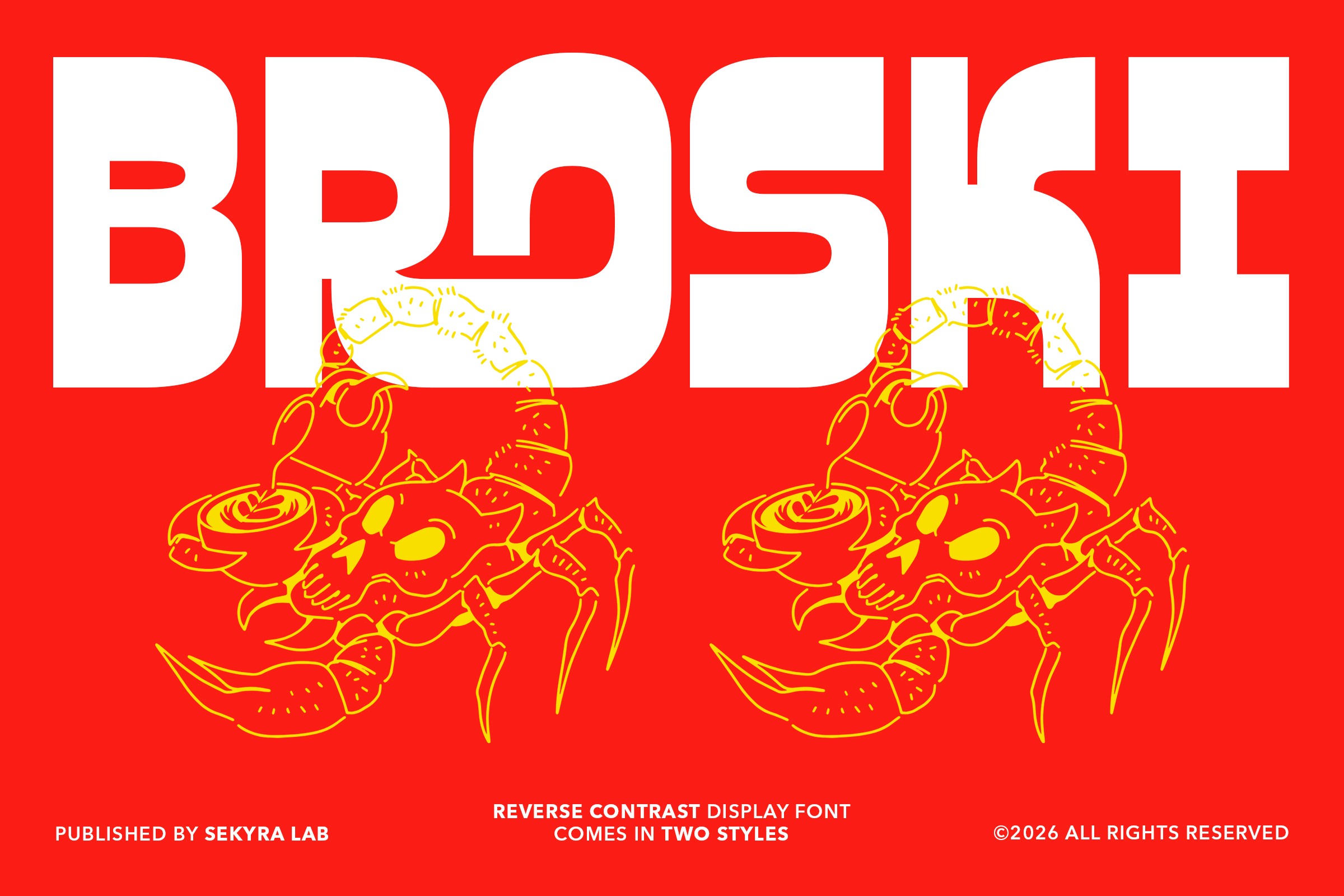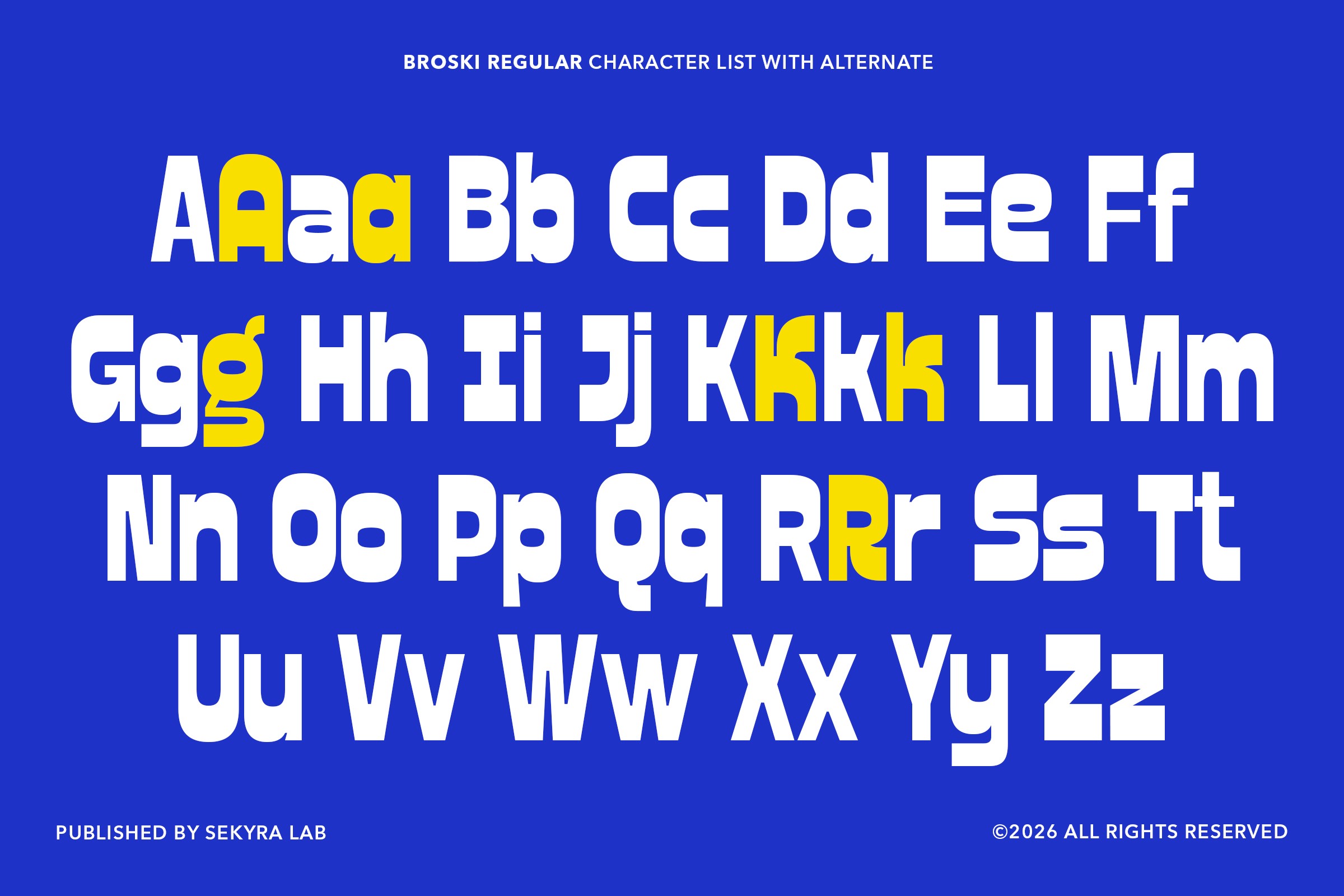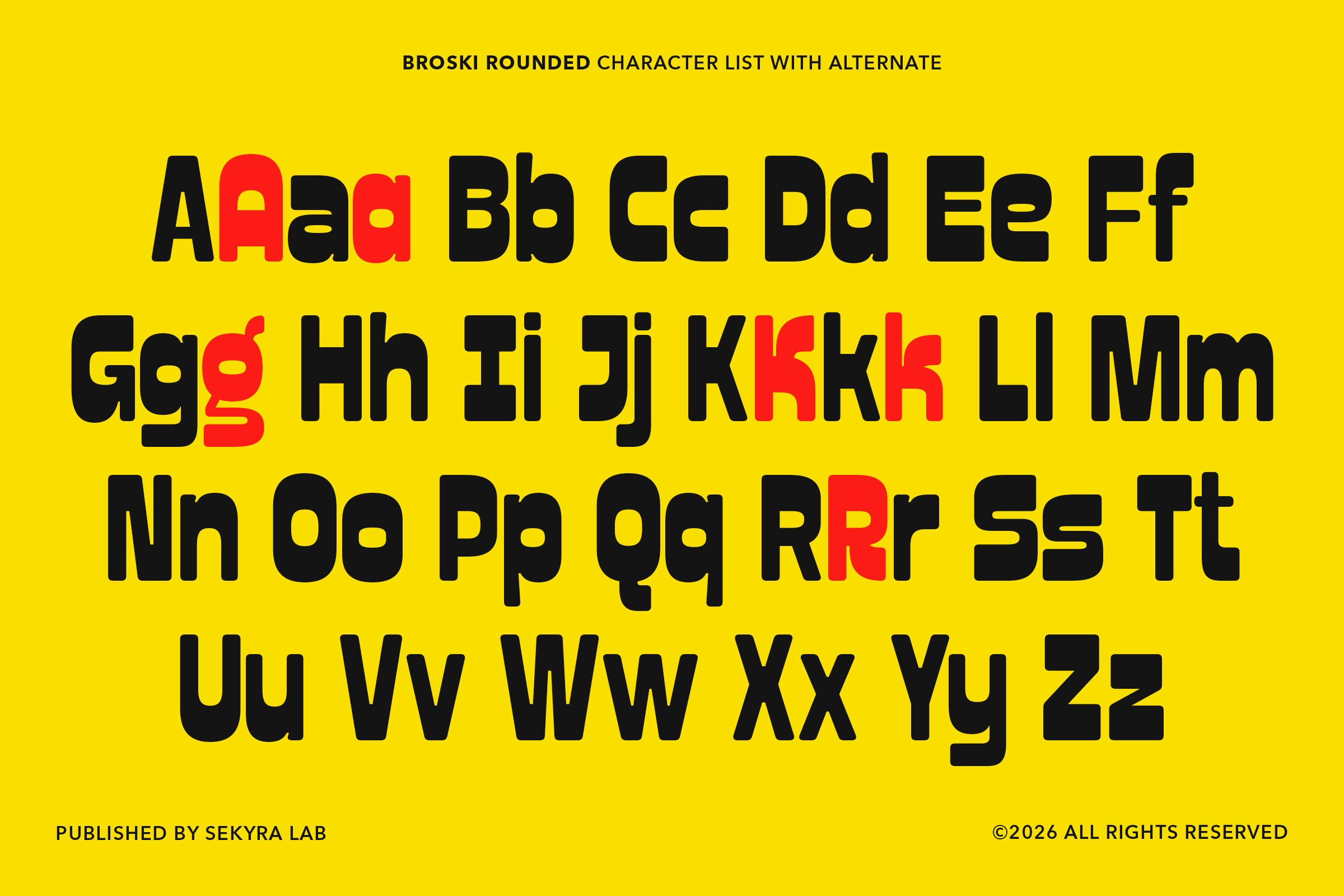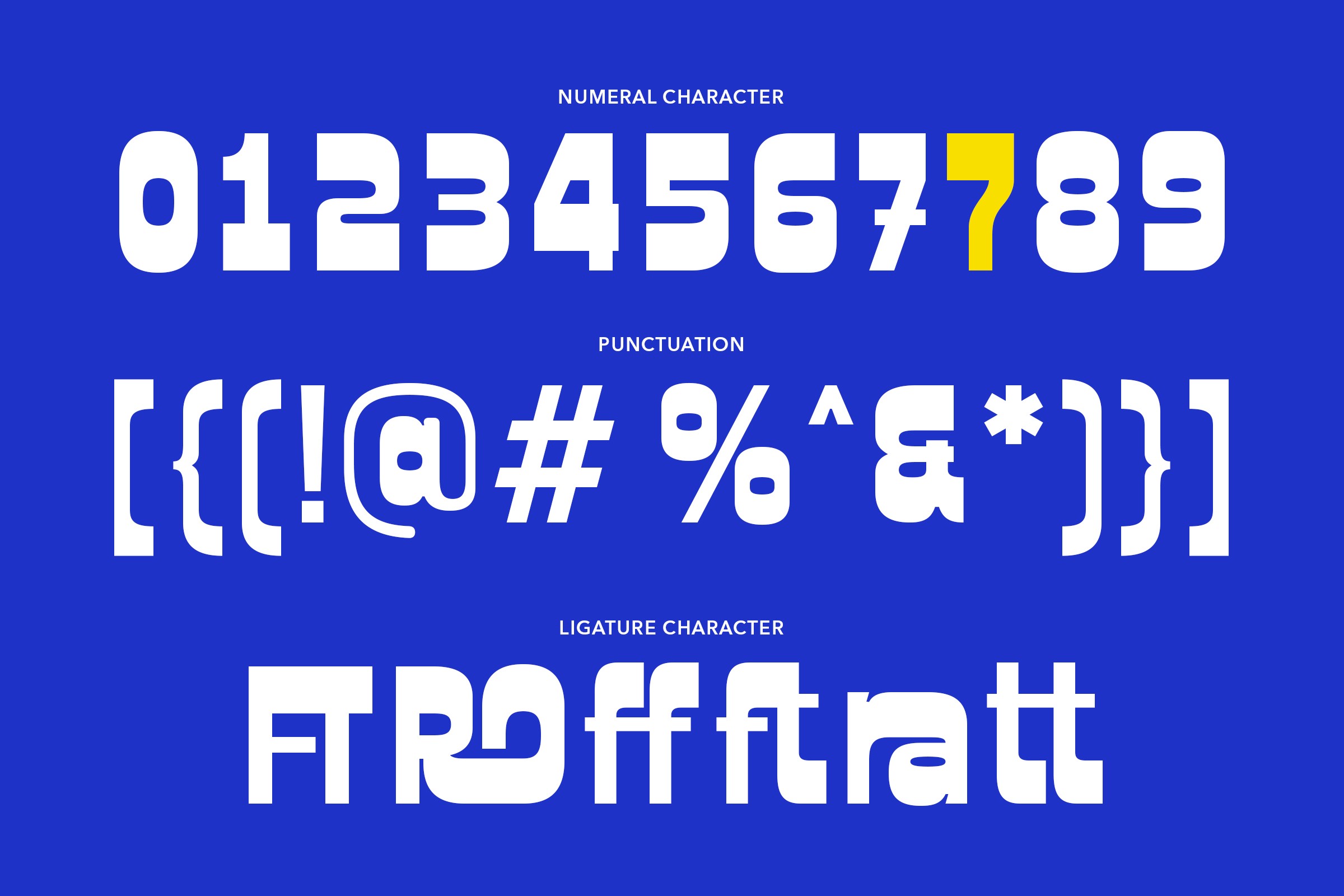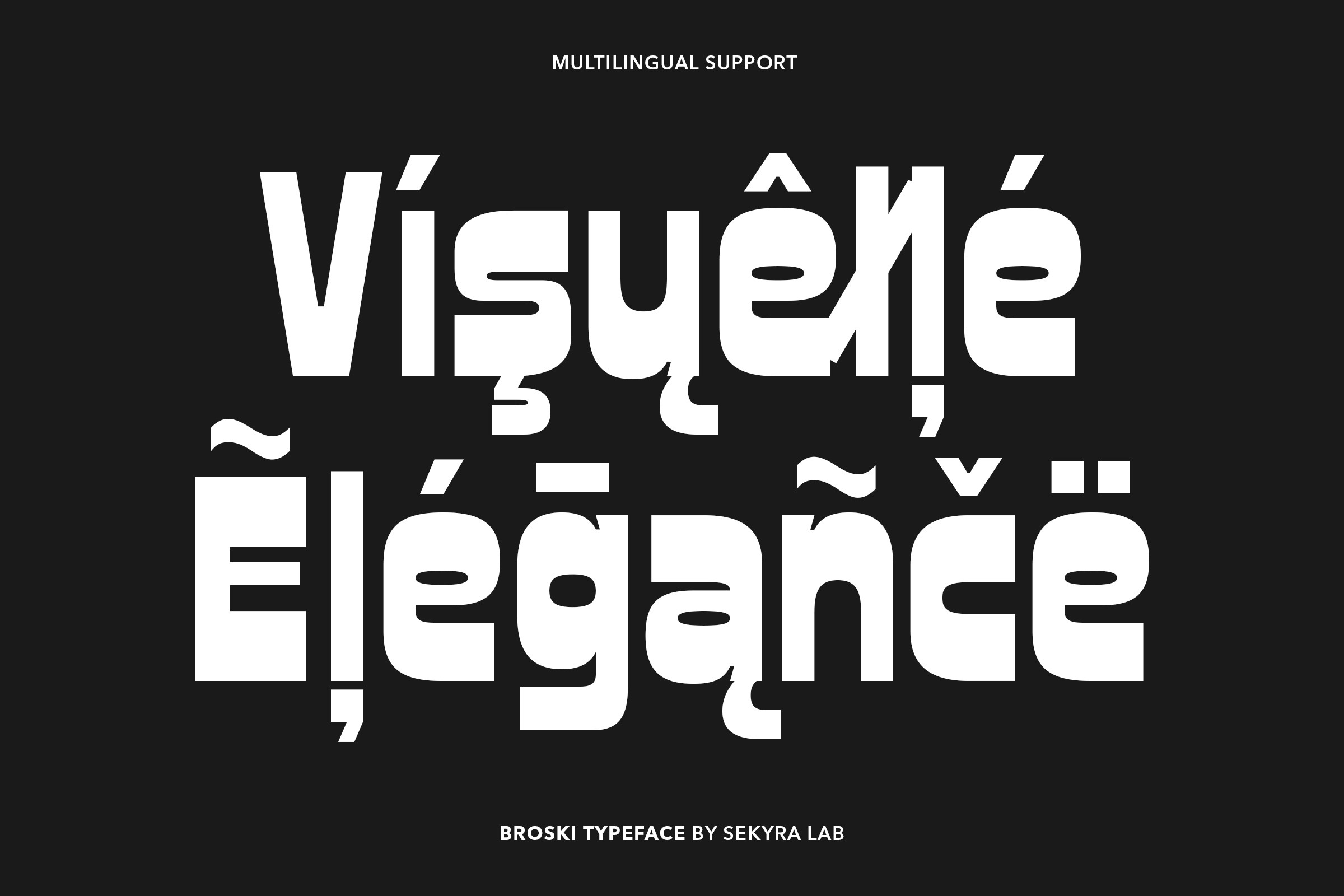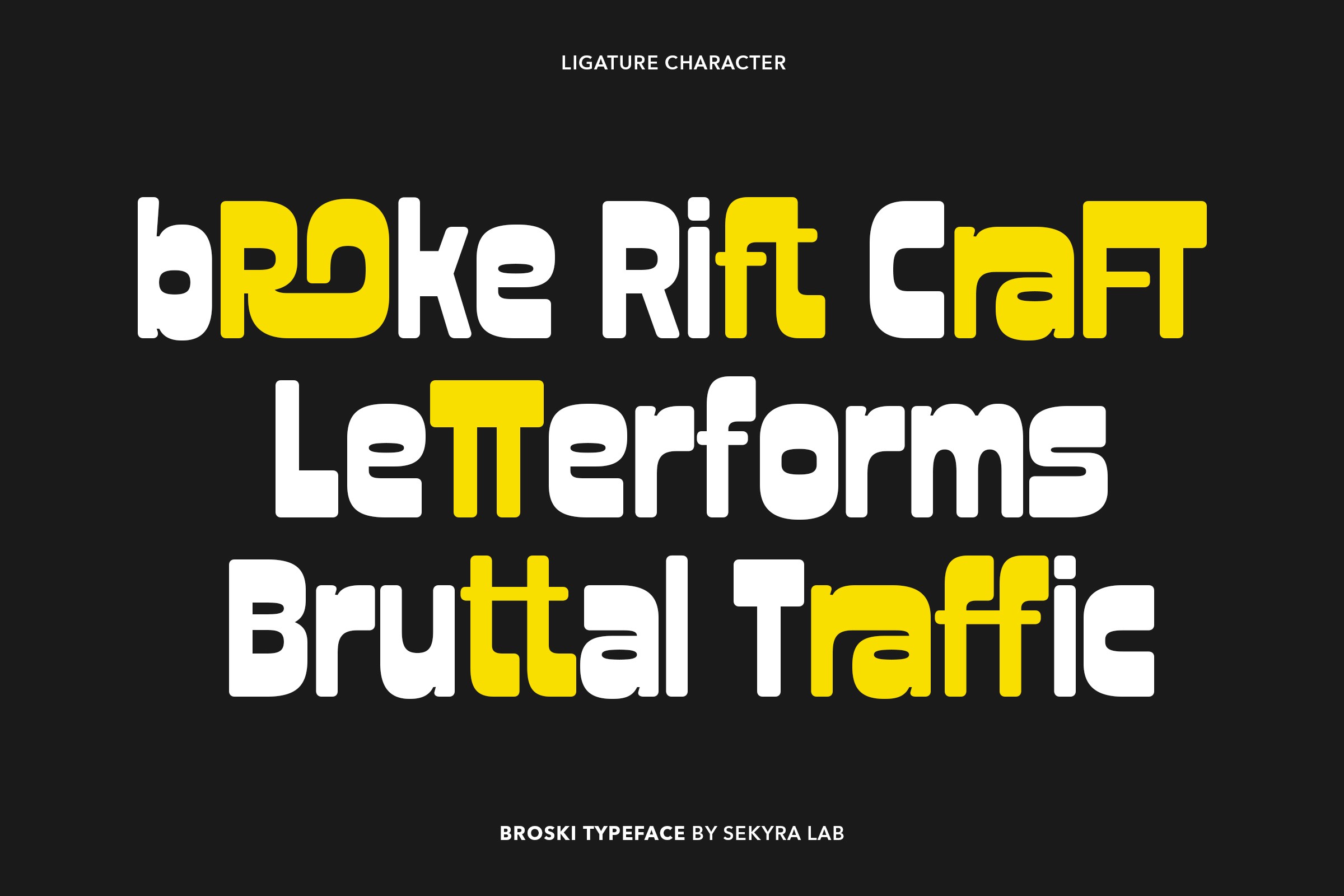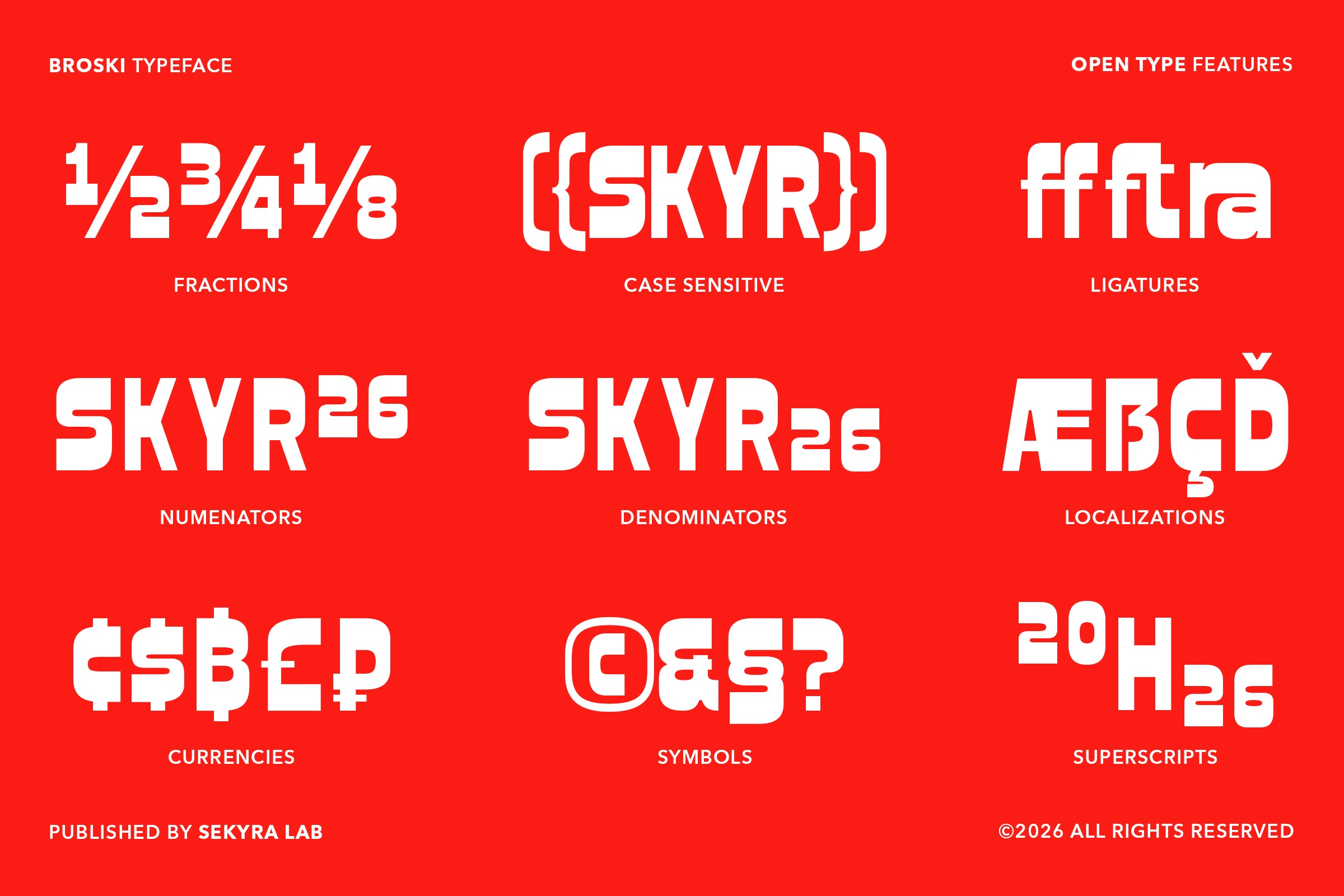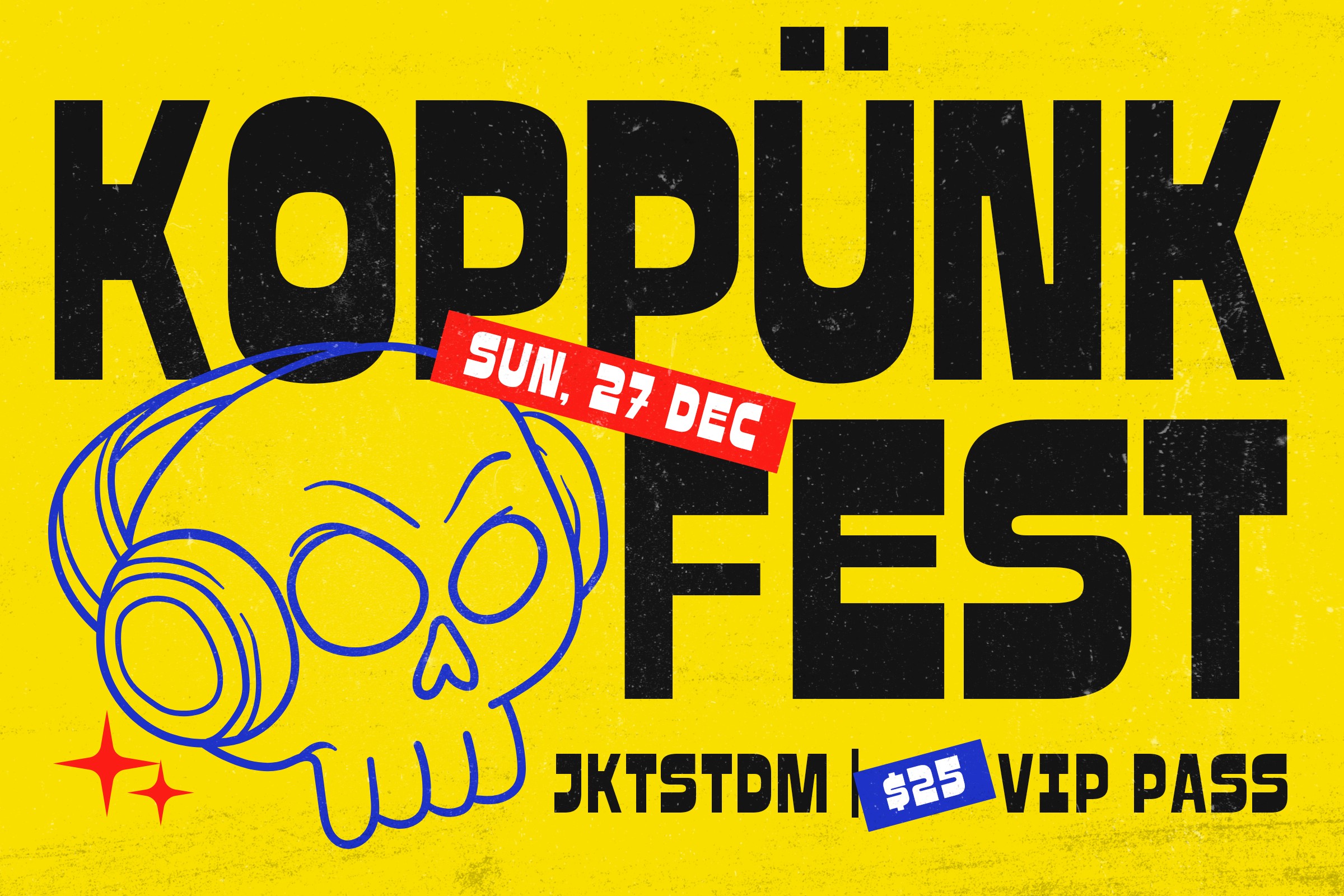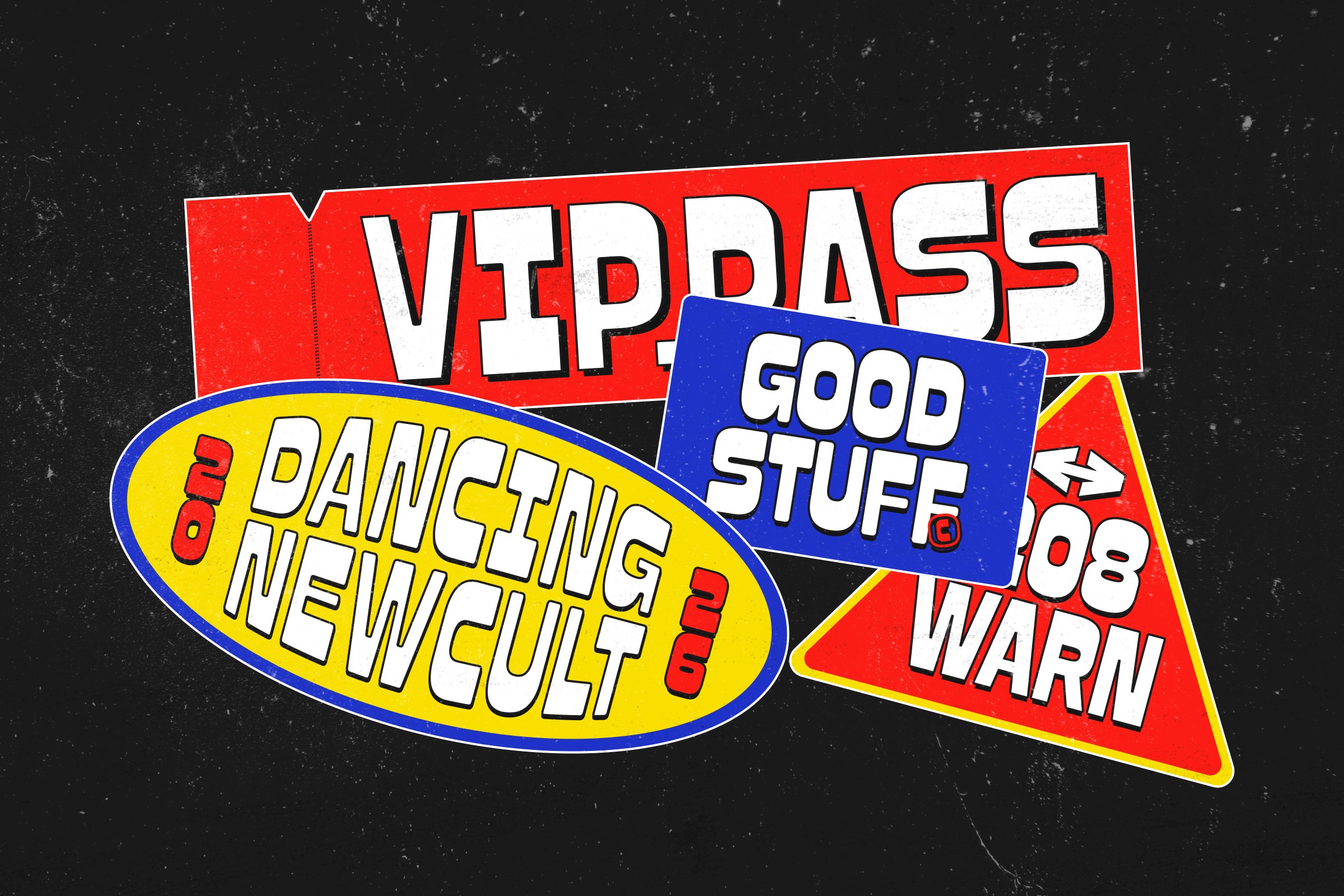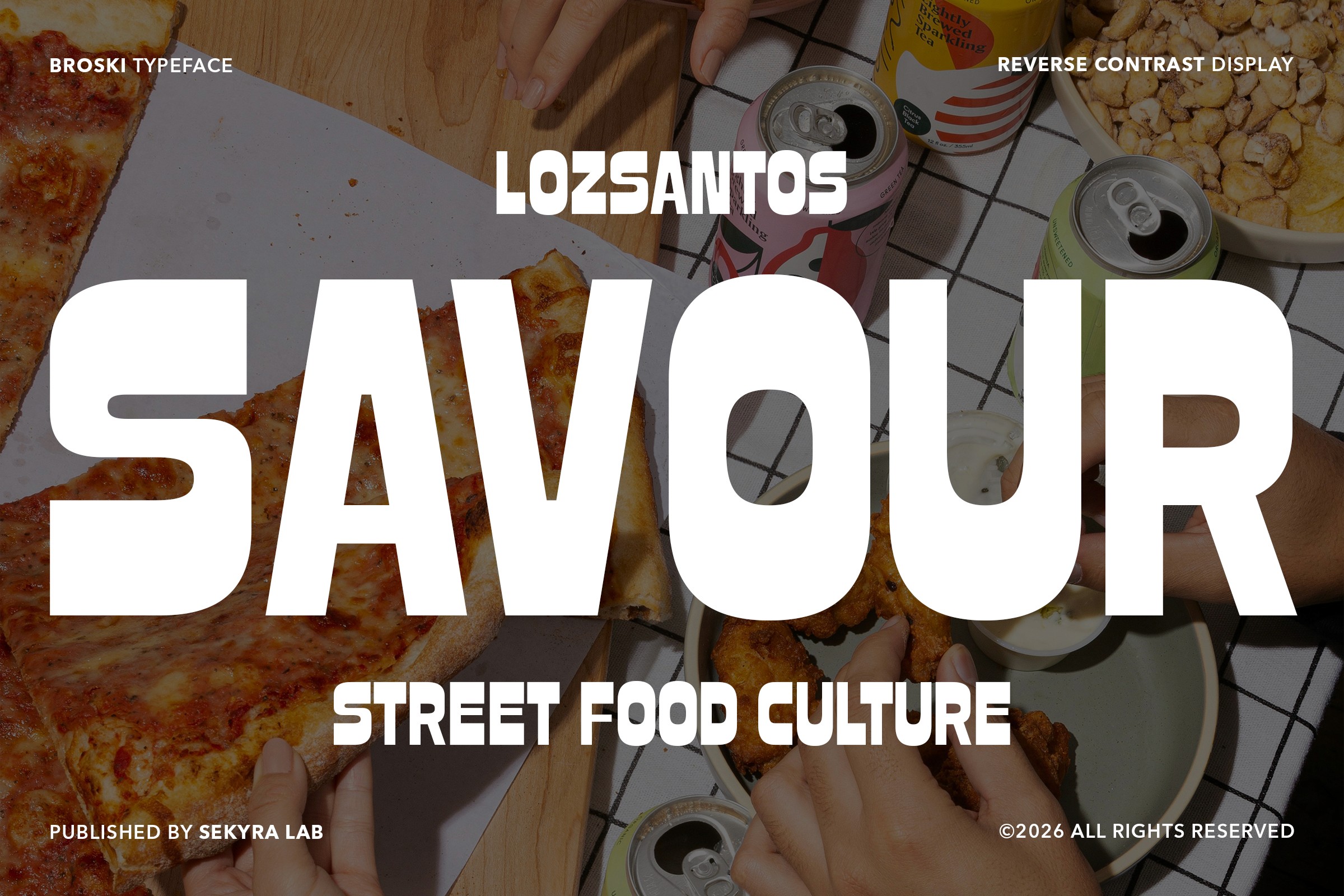
Broski Font
Type
Reverse Contrast Display
Styles
2 Styles
Release
2026
Broski is a bold reverse-contrast display typeface built to stand out. Its unconventional stroke logic flips traditional contrast, creating a striking rhythm that instantly captures attention and adds energy to any composition.
Key Features
Unique reverse contrast construction
Bold and playful visual rhythm
Strong personality for expressive layouts
Eye-catching letterforms for headlines
Multilingual support
Perfect For
Posters
Streetwear branding
Music & event visuals
Experimental design
Styles
Regular
Rounded